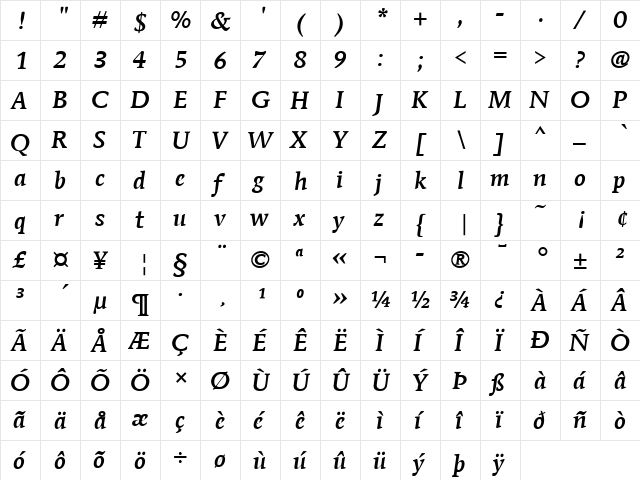
Mendoza Roman ITC Roman Medium Italic
Design Context for Mendoza Roman ITC Typeface
Mendoza Roman ITC takes a measured approach to typography — its balanced proportions and neutral character make it a reliable workhorse for both digital and print work. The slanted form adds forward momentum and visual energy.
Pro Tip: Try Mendoza Roman ITC for annotation and caption copy alongside an upright companion — the contrast in angle creates a dynamic but ordered typographic system.